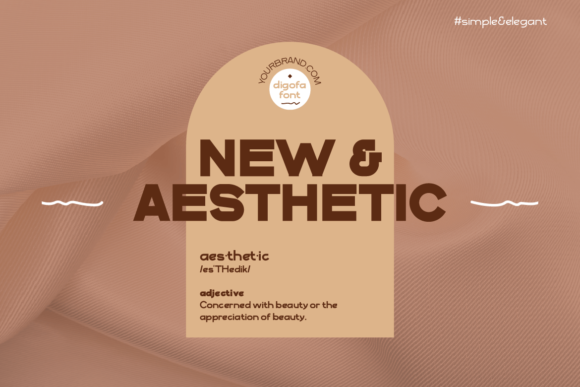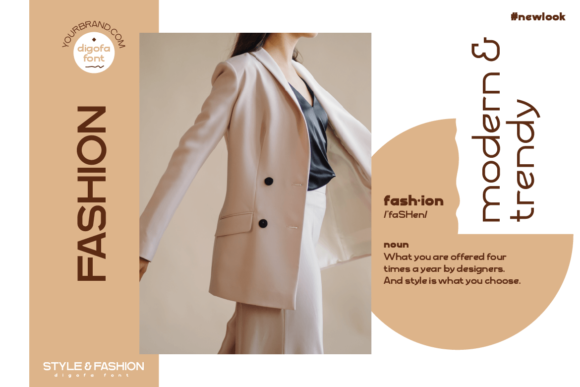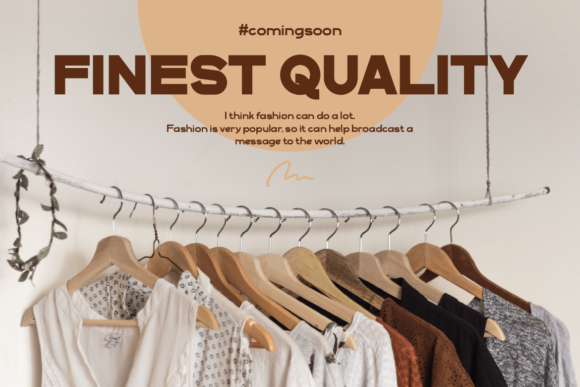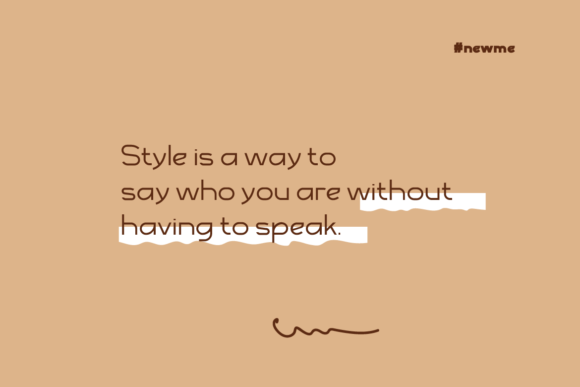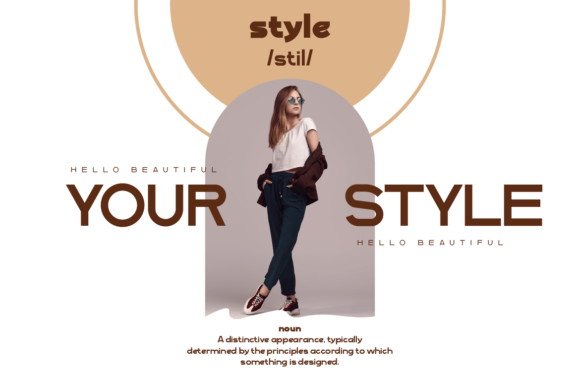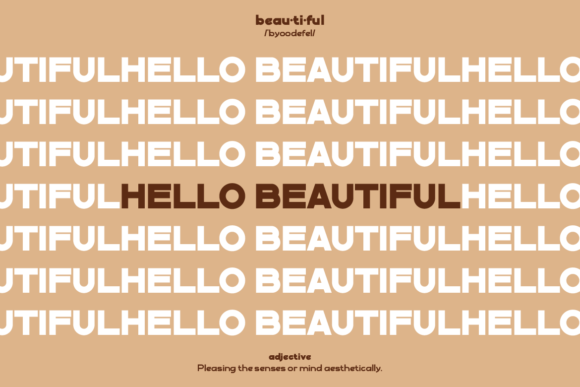
Discover the Unique Charm of Digofa Font: Elevate Your Designs with a Cool and Neat Sans Serif Font
In the vast universe of typography, finding the perfect font that adds a unique touch to your designs can be a daunting task. However, if you’re looking for a cool and neat sans serif font that stands out from the crowd, look no further than Digofa Font. This versatile font is ideal for a wide range of applications, from crafting stunning web designs to creating eye-catching business cards. In this article, we’ll delve into the world of Digofa Font, exploring its features, benefits, and uses, to help designers and crafters make the most of this typographic gem.
What is Digofa Font?
Digofa Font is a modern sans serif font that exudes a sense of simplicity and elegance. Its clean lines, rounded edges, and balanced proportions make it a perfect choice for designers seeking a fresh and contemporary look. The font’s unique charm lies in its ability to convey a sense of friendliness and approachability, making it suitable for a wide range of projects, from digital platforms to print materials.
Key Features of Digofa Font
- Clean and Minimalist Design: Digofa Font boasts a clean and minimalist design, making it perfect for designs that require a subtle yet impactful touch.
- Sans Serif Style: The font’s sans serif style gives it a modern and sleek look, ideal for designs that require a contemporary feel.
- Unique and Distinctive: Digofa Font’s unique design elements set it apart from other sans serif fonts, making it a great choice for designers looking to add a personal touch to their work.
- Highly Versatile: The font’s versatility makes it suitable for a wide range of applications, from web designs and business cards to posters, brochures, and more.
Benefits of Using Digofa Font
So, why choose Digofa Font for your next design project? Here are some benefits that make it an excellent choice:
- Enhance Readability: Digofa Font’s clean design and balanced proportions make it easy to read, even at small font sizes.
- Boost Creativity: The font’s unique charm and distinctive style can inspire creativity and help you create designs that stand out.
- Save Time: With Digofa Font, you can create professional-looking designs quickly and efficiently, thanks to its versatility and ease of use.
- Increase Engagement: The font’s friendly and approachable style can help engage your audience and leave a lasting impression.
Using Digofa Font in Your Designs
So, how can you make the most of Digofa Font in your designs? Here are some ideas to get you started:
- Web Designs: Use Digofa Font to create stunning website headers, titles, and descriptions that capture your audience’s attention.
- Business Cards: Add a touch of elegance and sophistication to your business cards with Digofa Font.
- Posters and Brochures: Create eye-catching posters and brochures that showcase your message in a clear and concise manner.
- Social Media Graphics: Use Digofa Font to create engaging social media graphics that stand out in a crowded feed.
In conclusion, Digofa Font is a cool and neat sans serif font that offers a unique touch to your designs. Its clean design, versatility, and ease of use make it an excellent choice for designers and crafters looking to elevate their work. Whether you’re creating web designs, business cards, or print materials, Digofa Font is sure to impress. So, why not give it a try and experience the difference for yourself?
With Digofa Font, the possibilities are endless. So, unleash your creativity, experiment with different designs, and discover the unique charm of this amazing font. Happy designing!